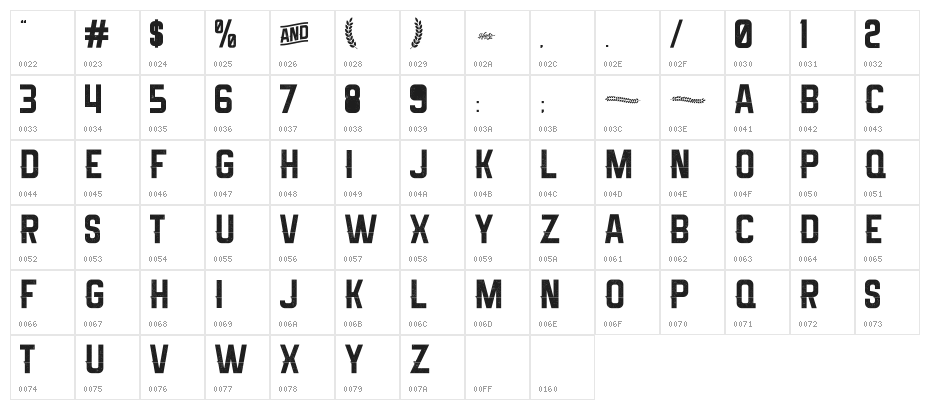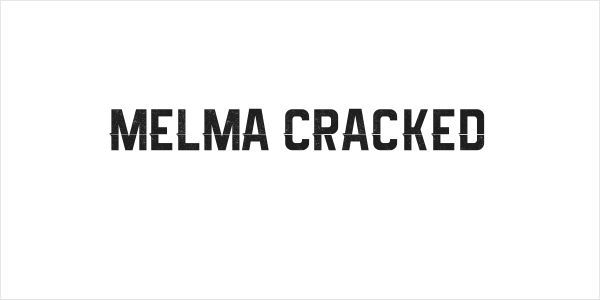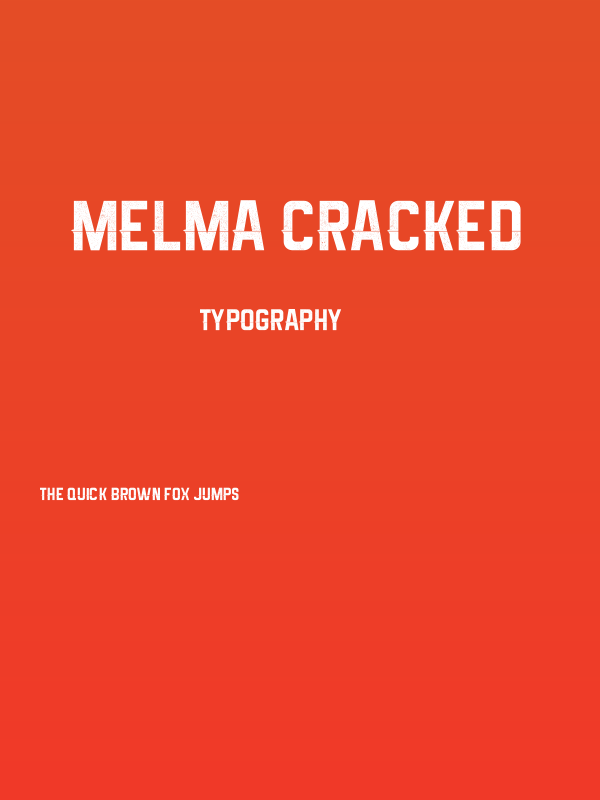
Melma Cracked Font
Melma Cracked Description
This font features a bold, distressed style with a cracked texture that gives it a rugged, vintage appearance. The uppercase letters are strong and impactful, making them ideal for attention-grabbing headlines. The numbers and special characters maintain the same distressed look, ensuring consistency across all text elements. The font's design is reminiscent of old signage or vintage posters, adding a touch of nostalgia and character. Its bold weight and textured finish make it stand out, while the uniformity in letter height and width provides a balanced and cohesive look.